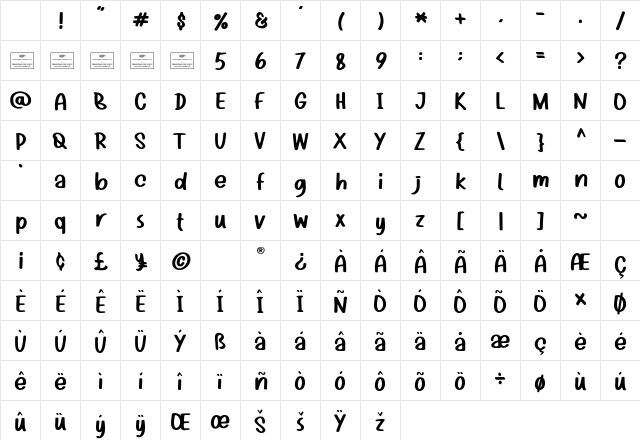
Complete Vanilla Cake Regular glyph index. Displaying only characters natively supported by Vanilla Cake Regular font.
Vanilla Cake is a composed and adaptable typeface that performs quietly and consistently across a wide range of design contexts.
Pro Tip: Use Vanilla Cake in both headline and body roles to test its range before committing to a single application.